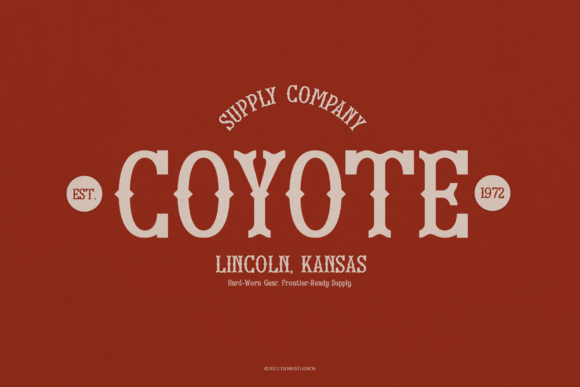
Drexia Font: A Bold and Rugged Slab Serif Font Inspired by Classic Western Aesthetics
In the world of typography, fonts play a crucial role in conveying the tone and personality of a brand or design. For those looking to add a touch of classic Western flair to their work, the Drexia font is an excellent choice. This bold, decorative slab serif font is inspired by the rugged charm of the Wild West, making it perfect for vintage logos, cowboy-themed branding, posters, saloon signage, and more.
What is Drexia Font?
Drexia is a bold, decorative slab serif font that draws inspiration from classic Western aesthetics. With its rugged and charming design, this font is sure to add a touch of the Wild West to any design project. Whether you’re looking to create a vintage logo, a cowboy-themed brand, or a poster that evokes the spirit of the American frontier, Drexia is an excellent choice.
Key Features of Drexia Font
Drexia font comes with a range of features that make it an excellent choice for designers. Some of its key features include:
- Over 300 glyphs: Drexia font has an extensive character set, making it suitable for a wide range of design projects.
- Ligatures: The font includes ligatures, which help to create a more natural and fluid text flow.
- Alternates: Drexia font also includes alternate characters, allowing designers to add more variety to their text.
- Multilingual support: The font supports multiple languages, making it a great choice for designers working on international projects.
Design Inspiration Behind Drexia Font
The design of Drexia font is inspired by the classic Western aesthetics of the American frontier. The font’s bold, decorative slab serif design is reminiscent of vintage signs, posters, and logos from the Wild West era. The font’s rugged charm and character make it perfect for designs that require a touch of nostalgia and authenticity.
Usage Ideas for Drexia Font
- Vintage logos: Use Drexia font to create a vintage logo that evokes the spirit of the Wild West.
- Cowboy-themed branding: Add a touch of authenticity to your cowboy-themed brand with Drexia font.
- Posters: Use Drexia font to create eye-catching posters that require a bold and rugged design.
- Saloon signage: Create authentic-looking saloon signage with Drexia font.
In conclusion, Drexia font is an excellent choice for designers looking to add a touch of classic Western flair to their work. With its bold, decorative slab serif design, extensive character set, and multilingual support, Drexia font is perfect for a wide range of design projects. Whether you’re creating a vintage logo, a cowboy-themed brand, or a poster that evokes the spirit of the Wild West, Drexia font is sure to bring a rugged charm to your designs.